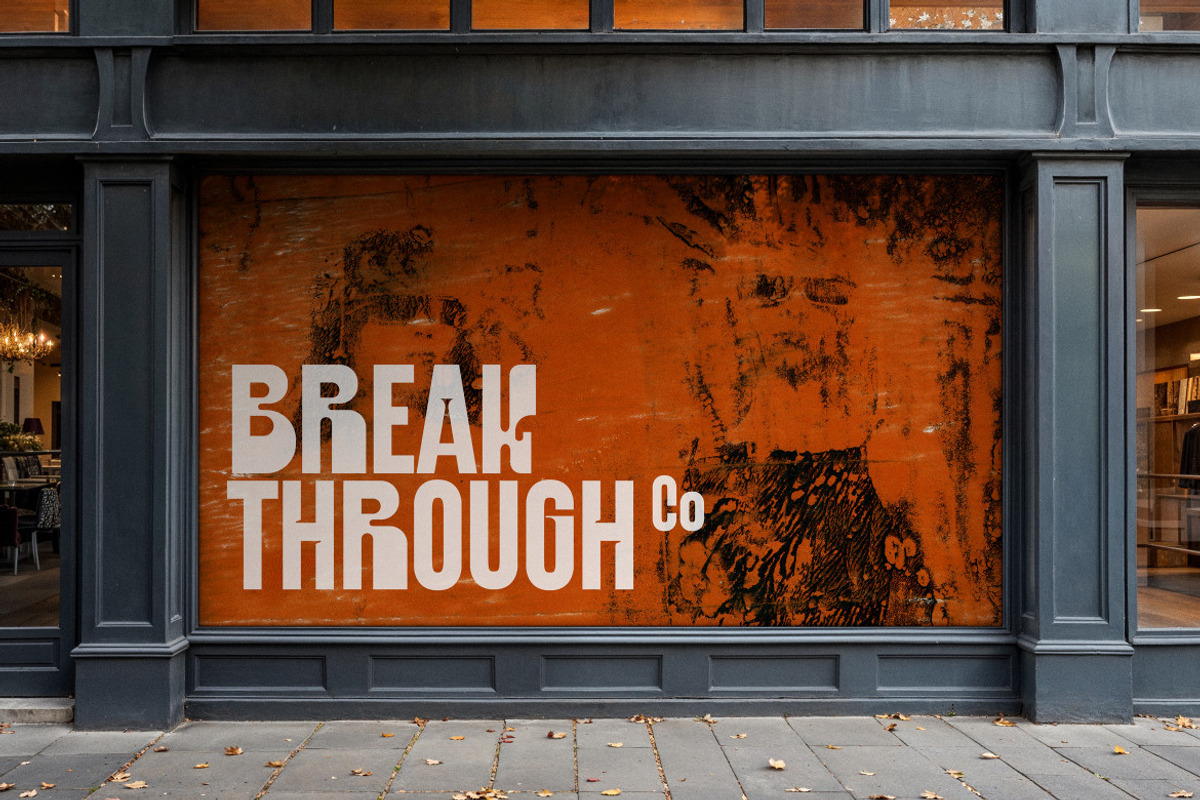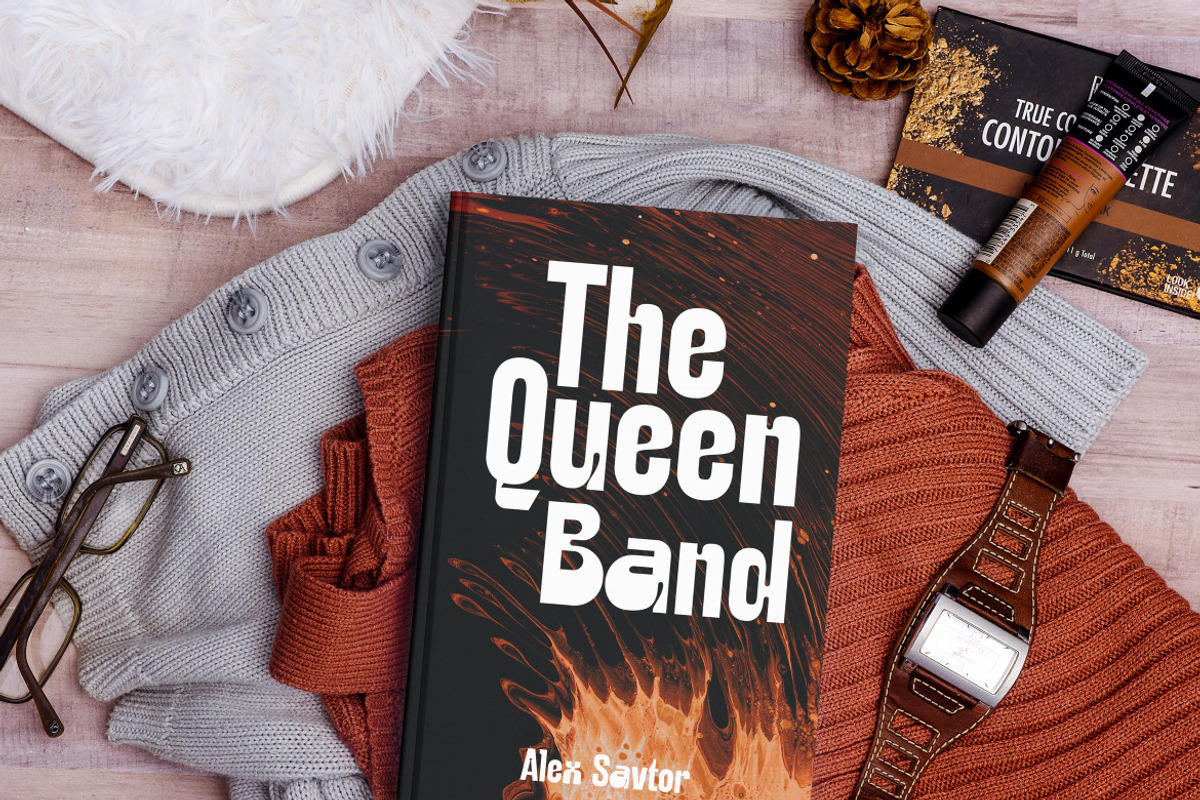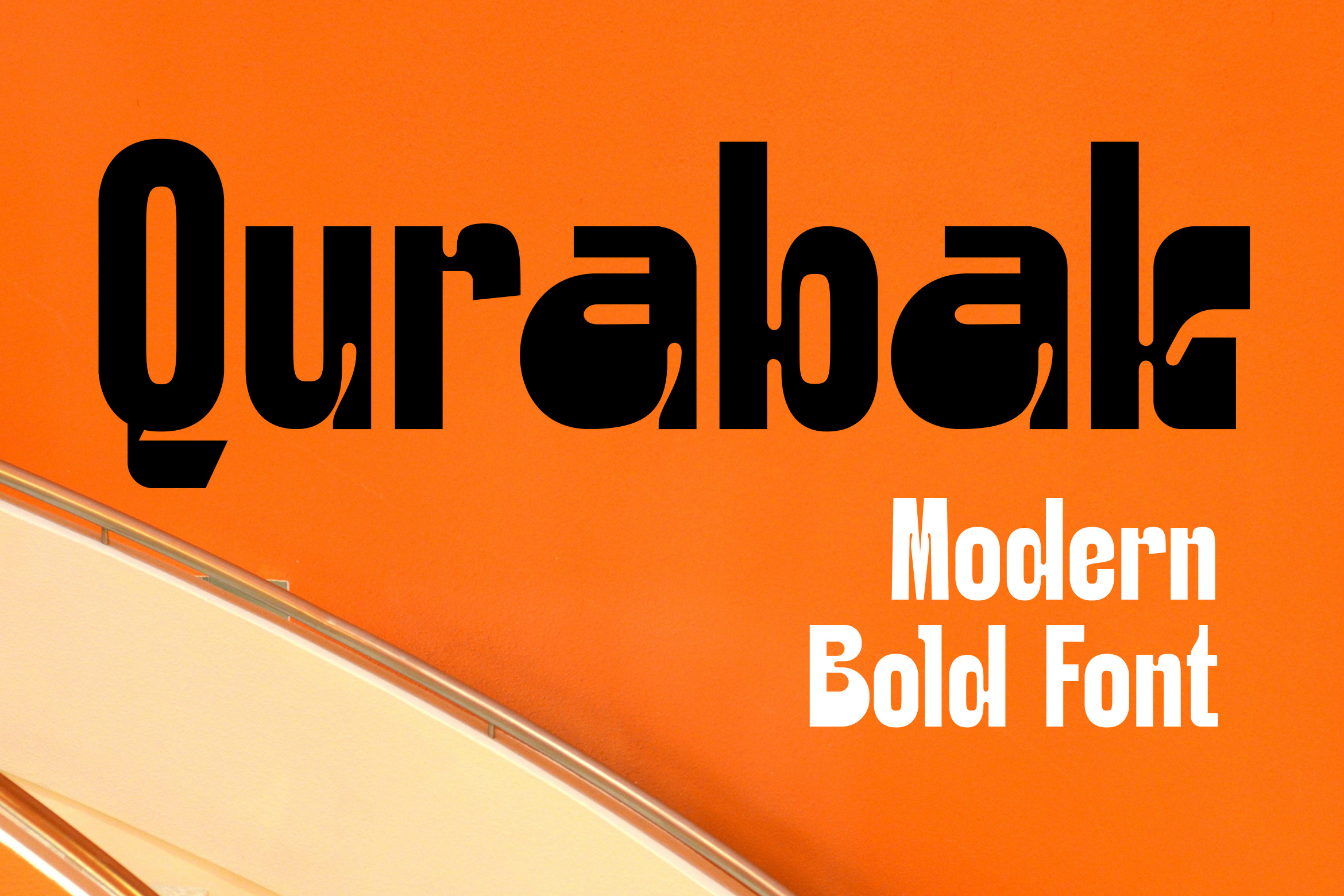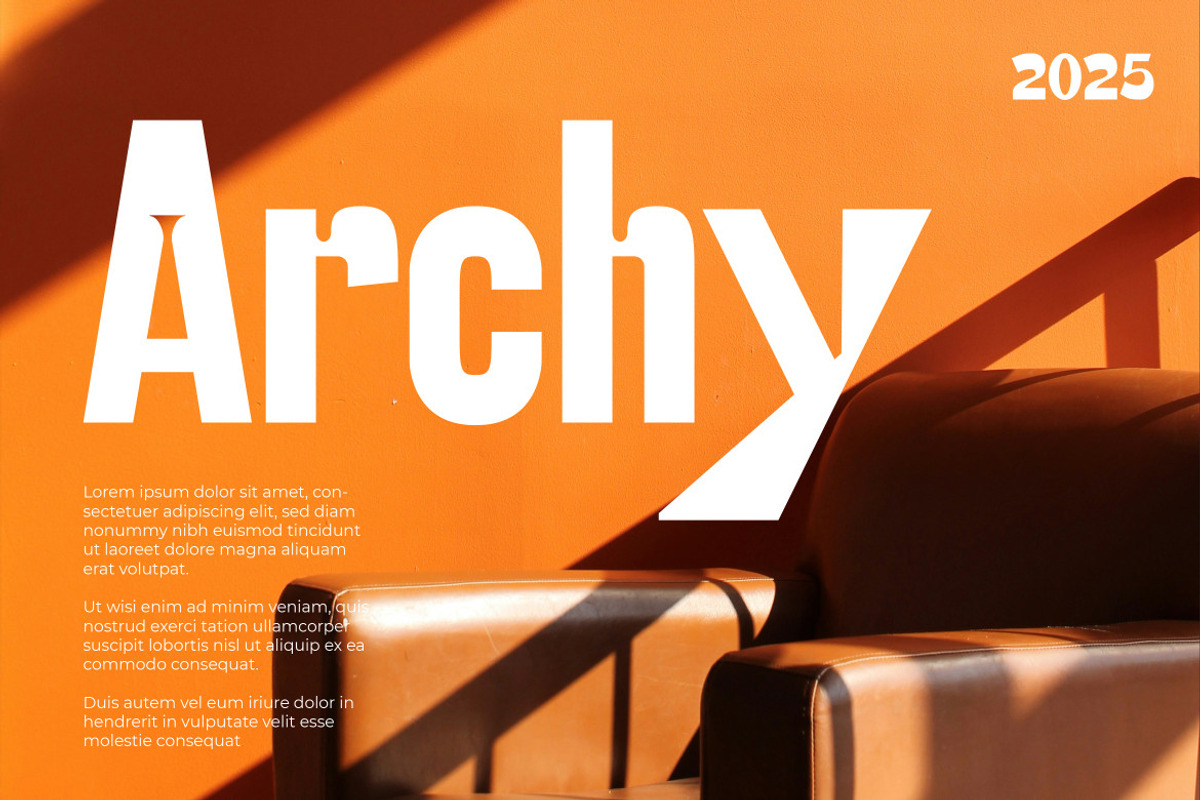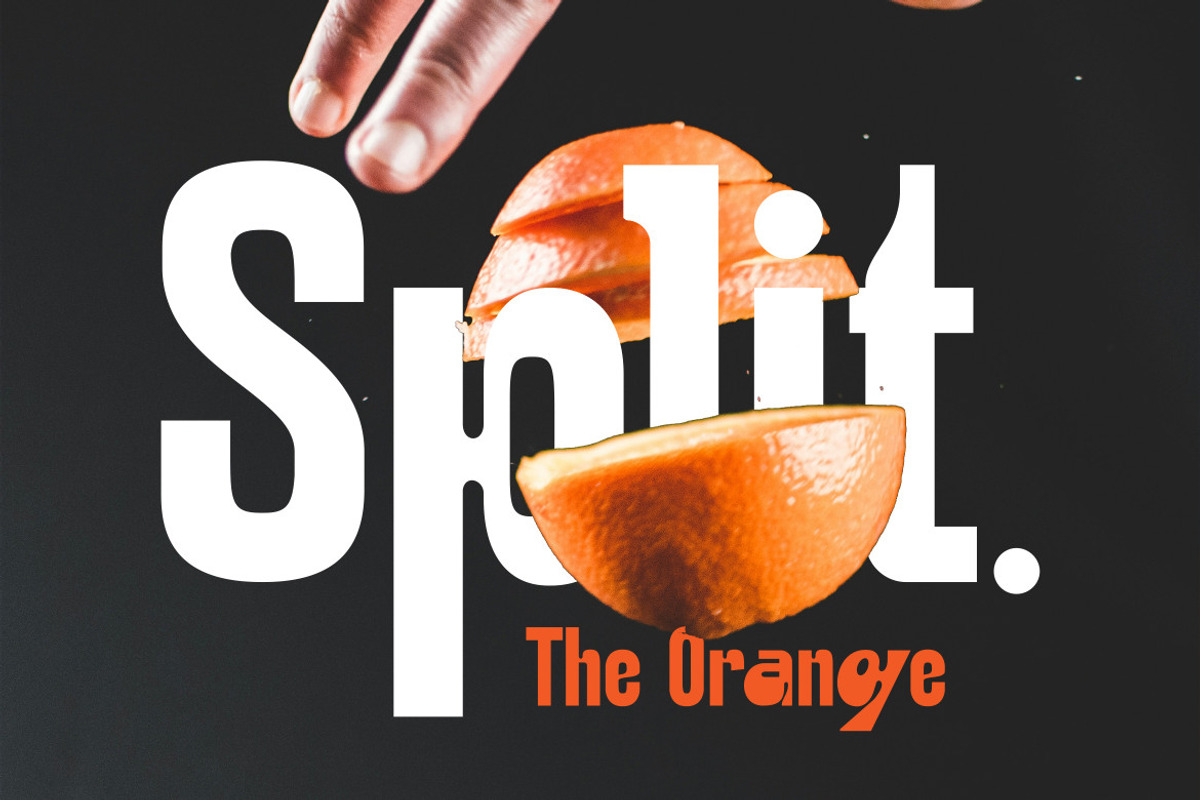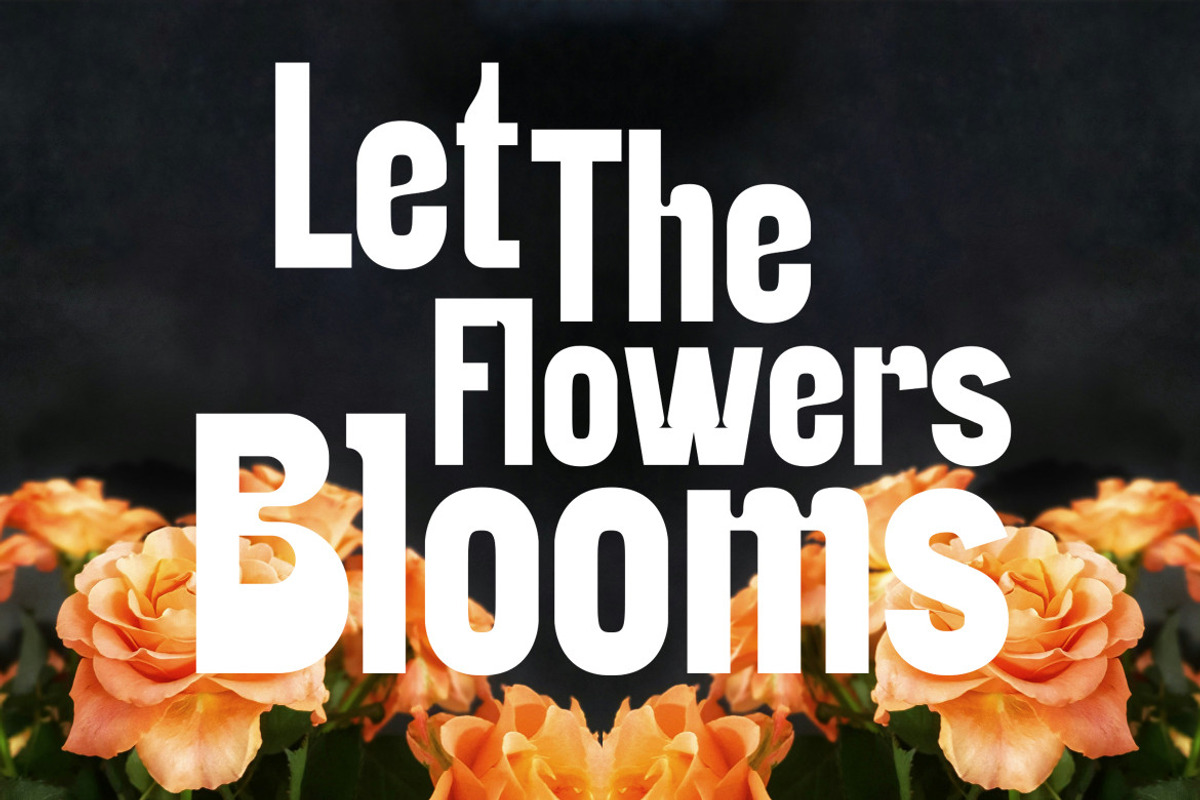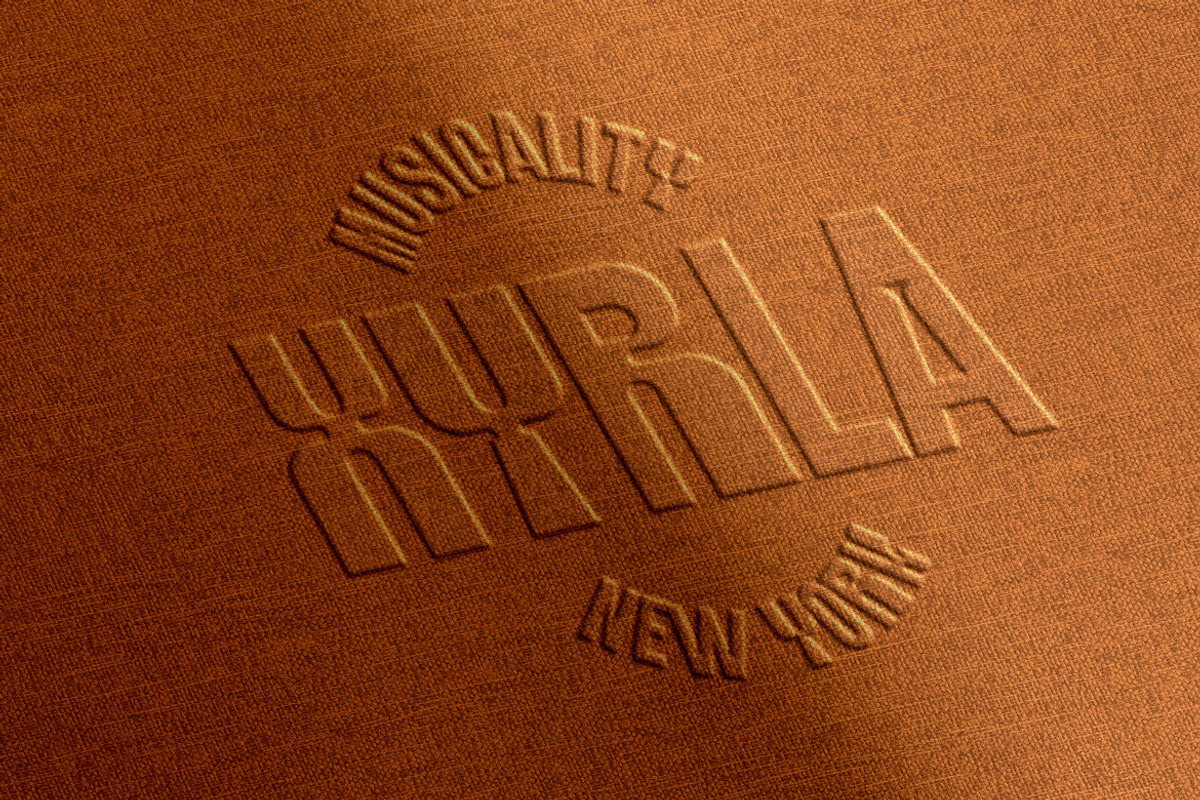
Modern Bold Font - Qurabak
Qurabak is a high-impact, bold display font designed for modern branding and visual storytelling. Its heavy, confident letterforms and clean geometric structure make it an ideal choice for projects that require maximum visibility and a contemporary "pop".
Whether you are designing a standout logo, high-energy sports branding, or eye-catching headlines for social media, Qurabak provides a professional and authoritative aesthetic. The font's wide, chunky profile ensures readability even in fast-paced digital environments.